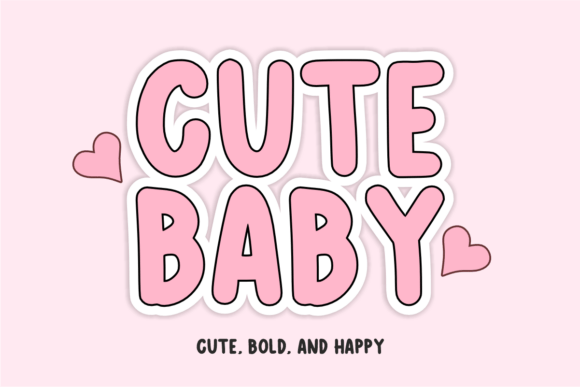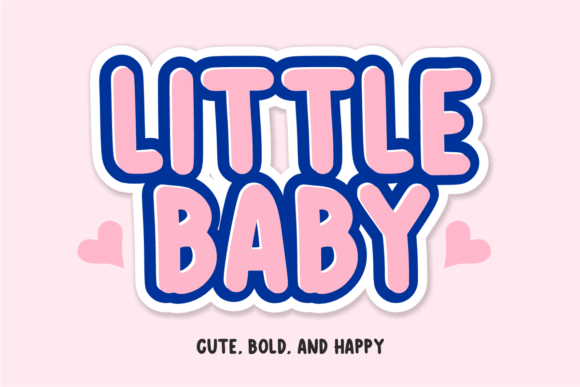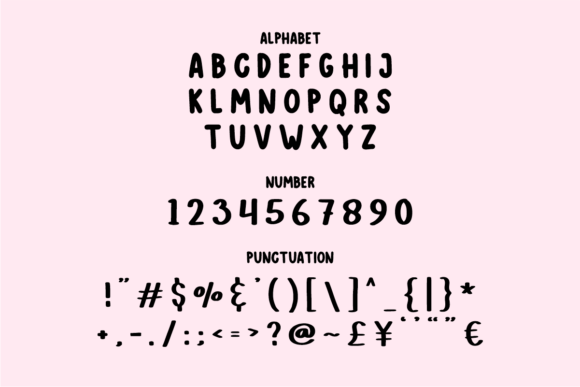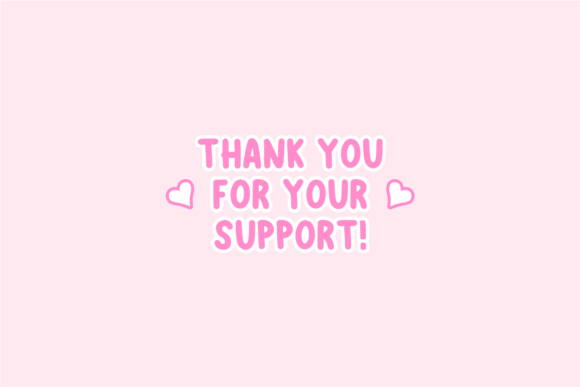
Bubble Craft Font: The Ultimate Choice for Fun and Playful Designs π§Ό
Are you looking for a font that can add a burst of happiness to your designs? Look no further than Bubble Craft, a cute, bold, and happy display font that’s perfect for a variety of creative projects. In this article, we’ll take a closer look at the features and benefits of Bubble Craft, and explore how it can elevate your designs to the next level.
What is Bubble Craft Font? π§Ό
Bubble Craft is a unique and playful font that’s designed to bring big energy and soft edges to your designs. With its thick, bubbly strokes and cheerful hand-drawn personality, this font is sure to make your message stand out with a happy, βpop-artβ vibe. Whether you’re crafting custom kids’ apparel, designing vibrant classroom posters, or creating eye-catching stickers, Bubble Craft is the ultimate choice for designs that need to be bold, approachable, and totally fun.
Key Features of Bubble Craft Font π
- Bold and Happy Design: Bubble Craft is designed to make a statement with its bold and happy design. The font features thick, bubbly strokes that give it a playful and energetic feel.
- High Legibility: One of the key features of Bubble Craft is its high legibility. The font is specifically optimized for clean cutting and high legibility, making it a dream for DIY crafters using Cricut or Silhouette.
- Hand-Drawn Personality: Bubble Craft has a cheerful hand-drawn personality that sets it apart from other fonts. The font is designed to bring a human touch to your designs, making them more approachable and engaging.
- Versatility: Bubble Craft is a versatile font that can be used for a variety of creative projects, from custom kids’ apparel to vibrant classroom posters and eye-catching stickers.
Benefits of Using Bubble Craft Font π
So why should you choose Bubble Craft for your next project? Here are just a few benefits of using this amazing font:
- Adds a Burst of Happiness: Bubble Craft is designed to bring a burst of happiness to your designs. With its bold and playful design, this font is sure to put a smile on your face and make your message more engaging.
- Perfect for DIY Crafters: Bubble Craft is a dream for DIY crafters using Cricut or Silhouette. The font’s high legibility and clean cutting make it easy to work with, even for beginners.
- Great for Kids’ Designs: Bubble Craft is perfect for designing custom kids’ apparel, posters, and stickers. The font’s playful and energetic design is sure to appeal to kids of all ages.
- Easy to Read: One of the key benefits of Bubble Craft is its high legibility. The font is easy to read, even at small sizes, making it perfect for designs that need to communicate a message.
Conclusion π
In conclusion, Bubble Craft is a unique and playful font that’s perfect for designers and crafters who want to add a burst of happiness to their designs. With its bold and happy design, high legibility, and hand-drawn personality, this font is sure to make your message stand out. Whether you’re crafting custom kids’ apparel, designing vibrant classroom posters, or creating eye-catching stickers, Bubble Craft is the ultimate choice for designs that need to be bold, approachable, and totally fun. So why wait? Download Bubble Craft today and bring a burst of happiness to your creative world! π